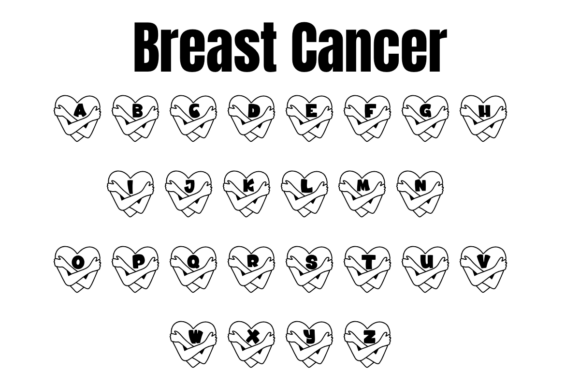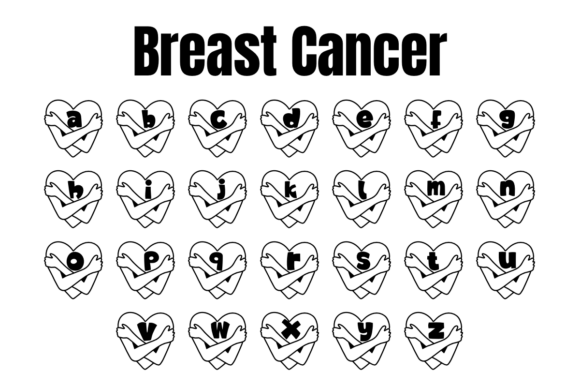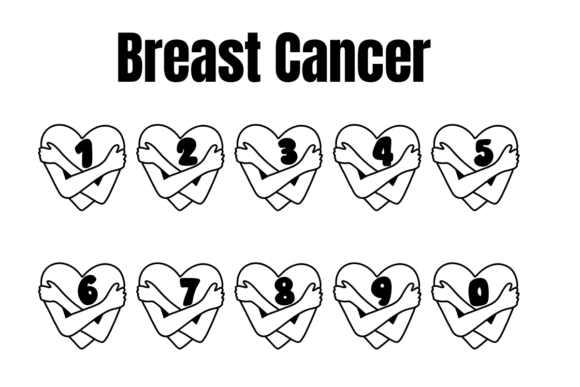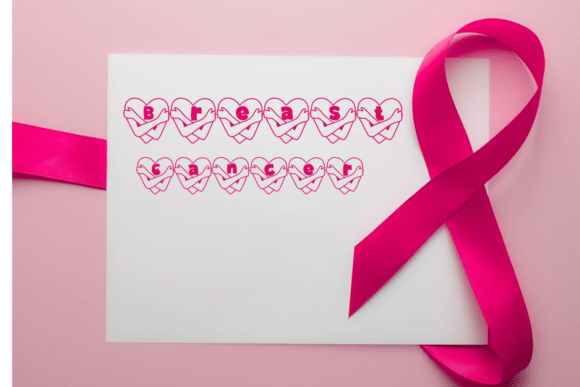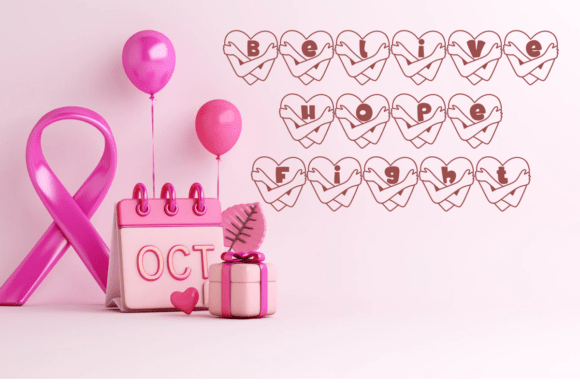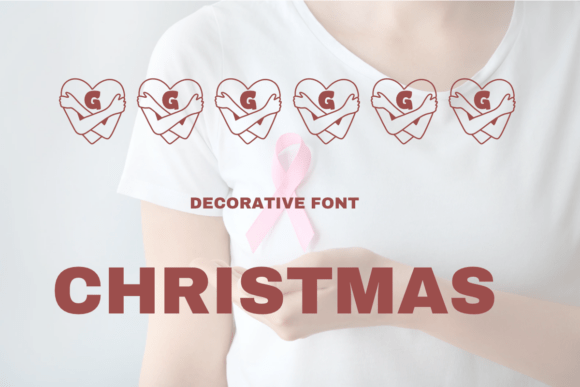
A Beautiful Tribute to the Fight Against Breast Cancer
As a designer, you’ve likely been inspired by a project that transcends mere aesthetics – one that speaks directly to the heart. For me, that moment came when I stumbled upon a beautifully crafted font that not only captured the essence of breast cancer awareness but also celebrated the resilience of those affected by it.
Enter the Breast Cancer Decorative Font – a poignant and elegant typeface designed to inspire hope and unity in the fight against breast cancer. Each letter is carefully crafted within a delicate heart-shaped ribbon, symbolizing love, strength, and the unwavering spirit of those who’ve faced this challenge. This thoughtful design is not only visually stunning but also carries a powerful emotional message, making it an invaluable asset for designers seeking to make a meaningful impact.
Whether you’re creating for a personal project or an advocacy initiative, the Breast Cancer Font is an empowering tool that conveys compassion, encouragement, and the collective strength of those who’ve been touched by this disease.
Breast Cancer Awareness Font Key Features
- Unique Characteristics: The Breast Cancer Font features a bold, sans-serif design with a distinctive pink ribbon incorporated into the lettering, serving as a visual representation of breast cancer awareness.
Breast Cancer Font Review
As a designer, I was intrigued by the concept of the Breast Cancer Font, but my experience with it left me with mixed feelings. ✨ One thing that works well is the bold and striking design, which is sure to grab attention. The font’s large, colorful letters are perfect for creating awareness about breast cancer.
- Unique design that stands out from the crowd
- Effective for grabbing attention and creating awareness
- Available in a variety of colors and font styles
However, I have to point out some limitations ⚠️. The font’s design is somewhat overwhelming and may not be suitable for all types of content. Additionally, the font’s large size can make it difficult to read in certain contexts. Furthermore, some users may find the font’s design to be too attention-seeking, which could be a distraction rather than an attention-grabber.
- Overwhelming design may not be suitable for all content
- Large size can be difficult to read in certain contexts
- Design may be too attention-seeking for some users
Overall, while the Breast Cancer Font has some great qualities, its limitations make it a font that should be used judiciously. With careful consideration and planning, it can be a powerful tool for creating awareness and grabbing attention, but it’s not a font that should be used for every project.
Use the Breast Cancer Font to create awareness for breast cancer, particularly in the month of October. You can use it to create posters, flyers, or social media graphics. Be sure to check the font’s licensing terms to ensure you are using it correctly.
The Breast Cancer Font is commonly used for:
- Breast cancer awareness campaigns.
- Charity events and fundraisers.
- Social media graphics and posts.
- Posters and flyers for breast cancer events.